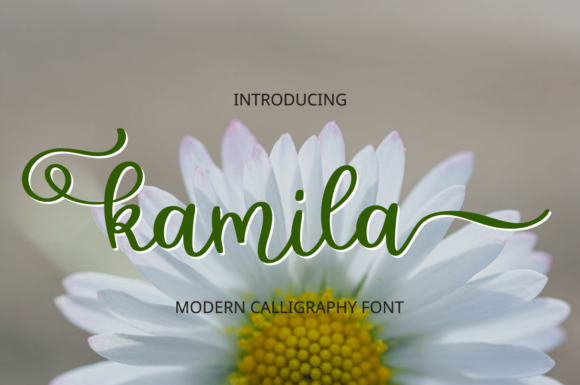
Behold, Kamila, the enchanting script font that will ignite your creative spirit and leave you spellbound. With its delicate strokes and graceful curves, Kamila dances across your digital canvas like a ballerina, adding a touch of elegance and charm to every project.
Visualize your designs adorned with Kamila's captivating beauty, whether it's a heartfelt message for a loved one, a personalized tumbler that sparkles with individuality, or a stunning social media post that demands attention. Kamila's versatility knows no bounds, making it the perfect font for a multitude of creative endeavors.
Step into a world of endless possibilities with Kamila as your creative companion. Create dazzling invitations that evoke a sense of wonder, craft heartwarming greeting cards that resonate with emotion, or design breathtaking posters that captivate audiences. Let Kamila's enchanting essence elevate your projects to new heights, leaving a lasting impression on all who encounter them.
Unleash your creativity and embrace the magic of Kamila today. Let its beauty flow through your fingertips as you bring your imaginative visions to life. Experience the joy of creating unique and captivating designs that reflect your personal style and captivate the hearts of your audience. With Kamila, the possibilities are limitless.